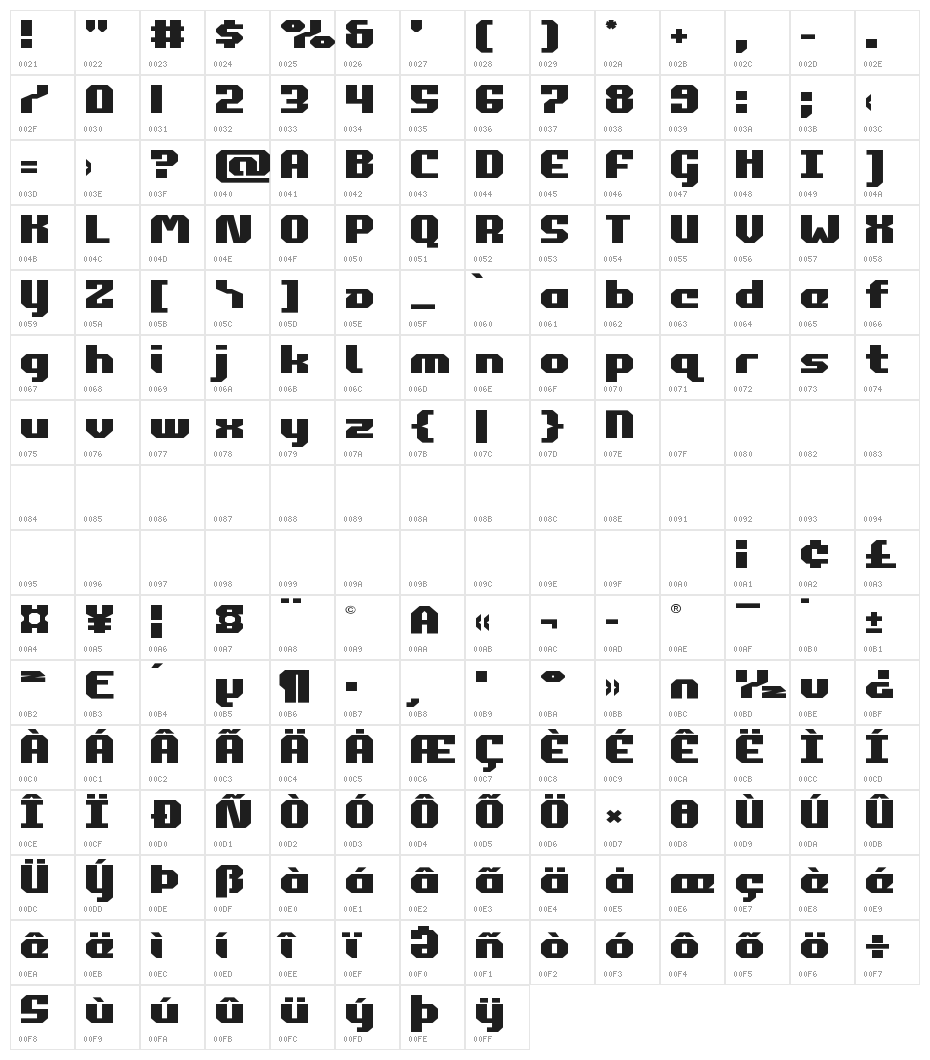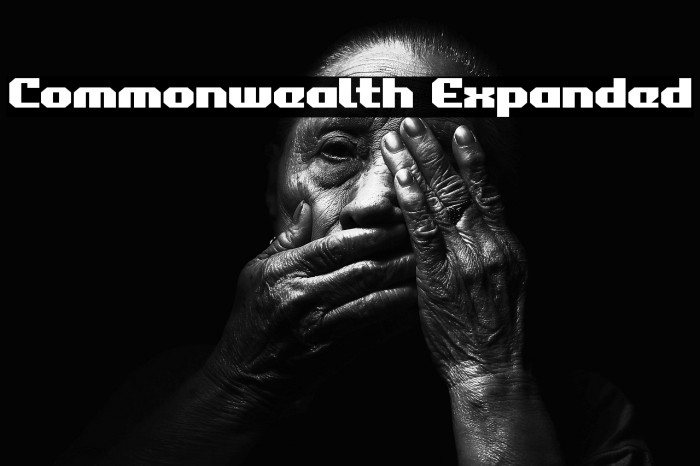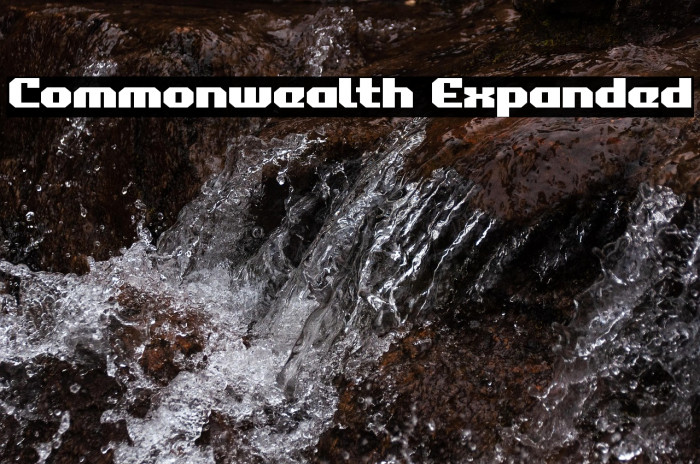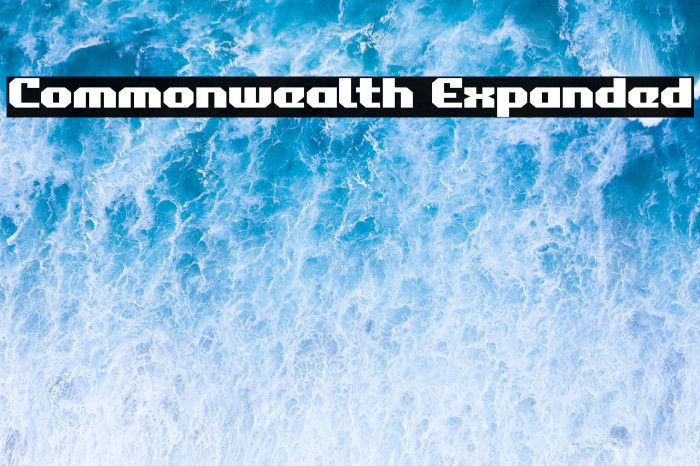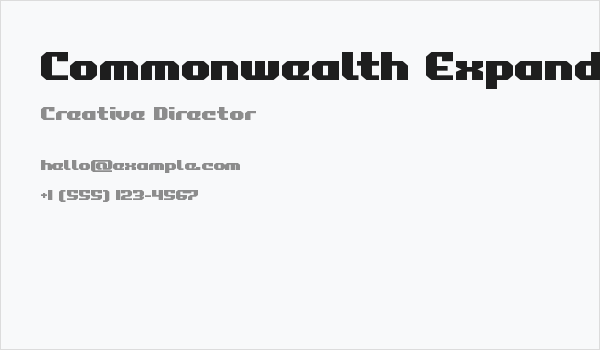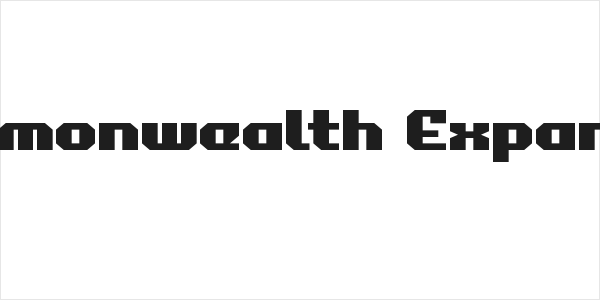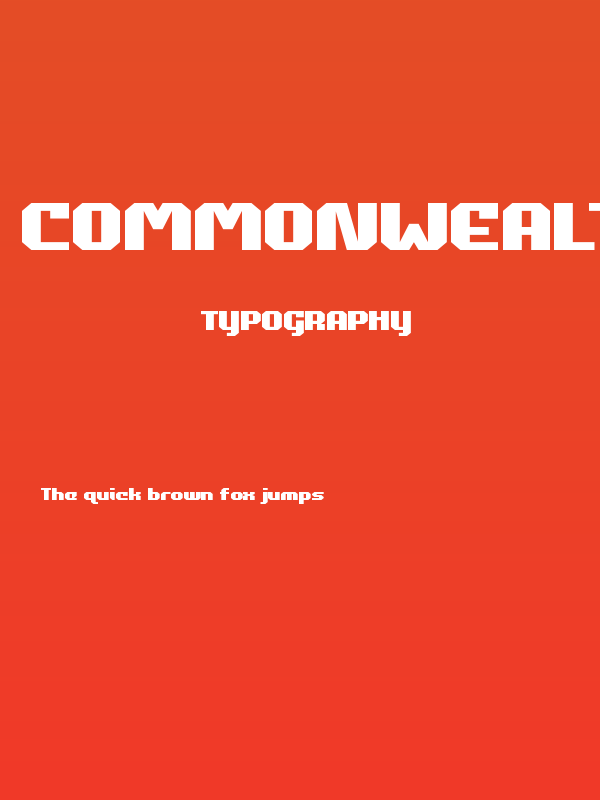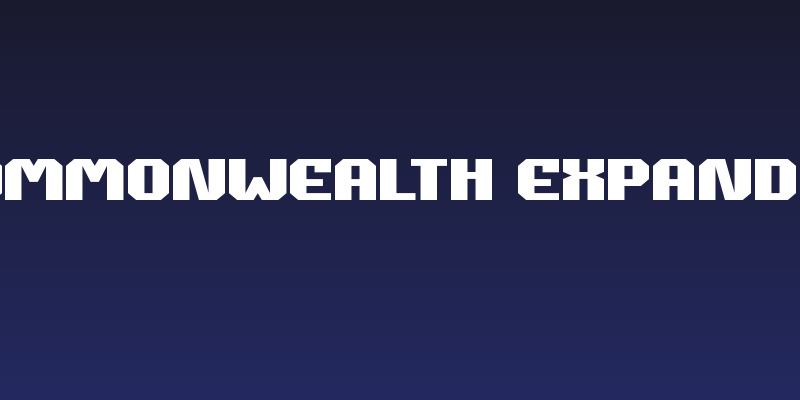
Commonwealth Expanded Font
Commonwealth Expanded Description
This font features a bold and geometric style with strong, angular lines and a distinct blocky appearance. The characters are uniformly expanded, giving them a robust and impactful presence. The uppercase and lowercase letters maintain a consistent width, contributing to a cohesive and structured look. The numerals and special characters follow the same design principles, ensuring uniformity across all glyphs. This font's design is reminiscent of industrial or futuristic aesthetics, making it suitable for projects that require a modern and assertive typeface.
| Proposed Projects | Ideal for branding, posters, headlines, and any design requiring a strong, modern typeface. |